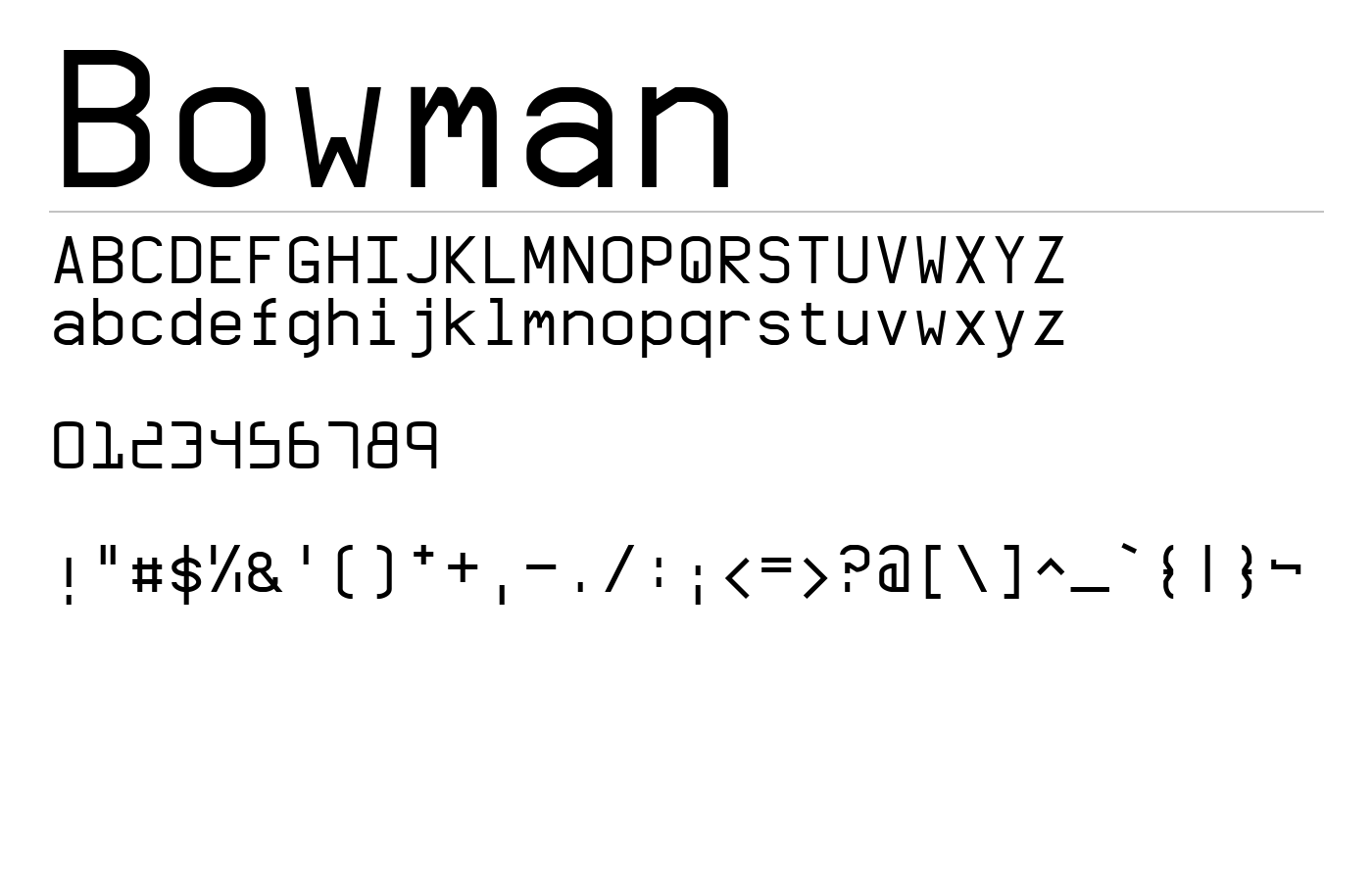
Bowman is a clean, modern sans serif font with a technical and slightly geometric feel, featuring uniform stroke weights and a tall x-height that enhances readability. Its monospaced, narrow letterforms and simple shapes make it ideal for coding, technical documents, and minimalist design projects seeking clarity and precision. This font works especially well in digital environments, programming interfaces, and contemporary branding where a straightforward, no-nonsense appearance is desired.
Bowman Font
About Bowman Font